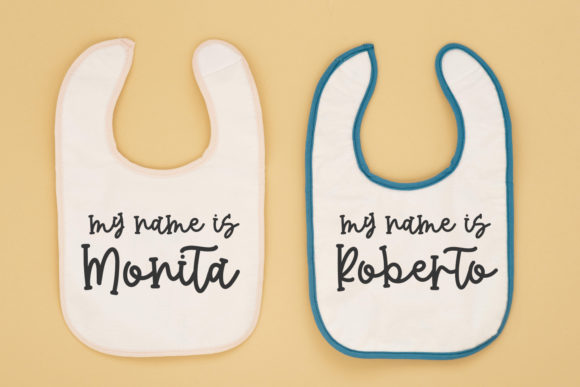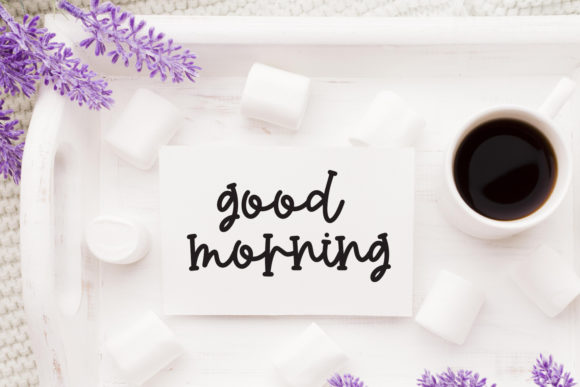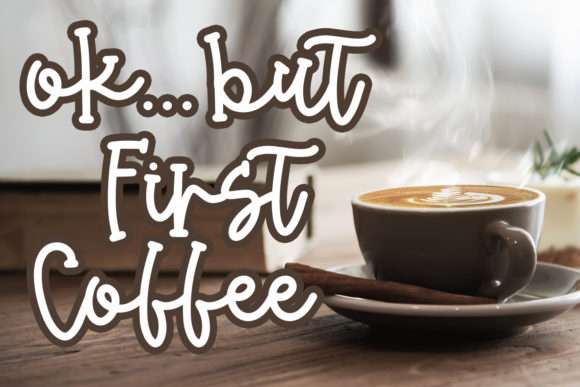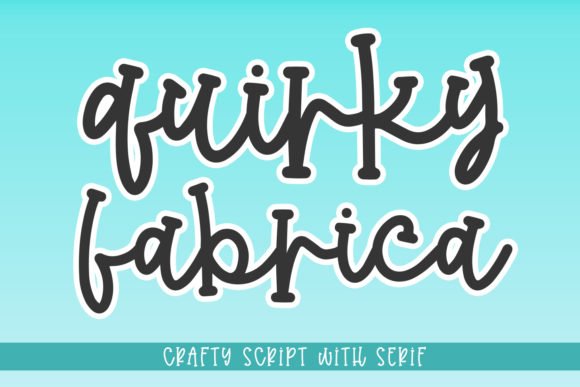
Introduction to Quirky Fabrica Font
Quirky Fabrica is a cool and playful display font.
Whether you’re looking for fonts for Instagram or calligraphy scripts for DIY projects, this font will turn any creative idea into a true piece of art .
Key Features of Quirky Fabrica Font
Why Choose Quirky Fabrica Font?
Quirky Fabrica Font offers exceptional quality and versatility, making it a valuable addition to your design toolkit. Whether you’re creating for personal projects or commercial use, Quirky Fabrica Font delivers professional results.